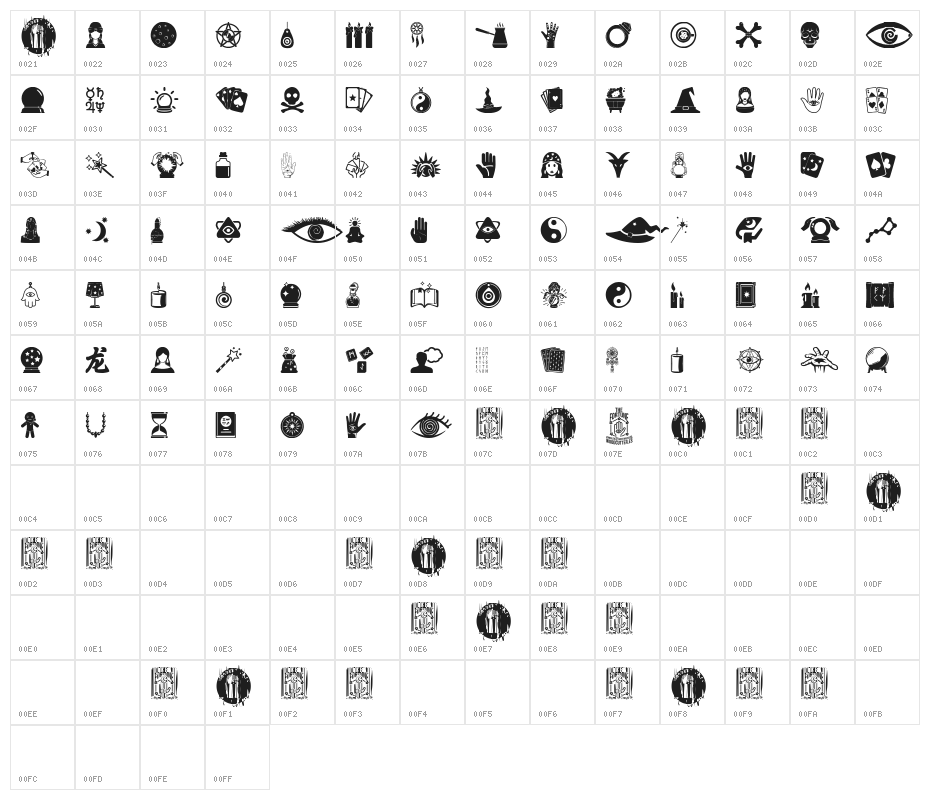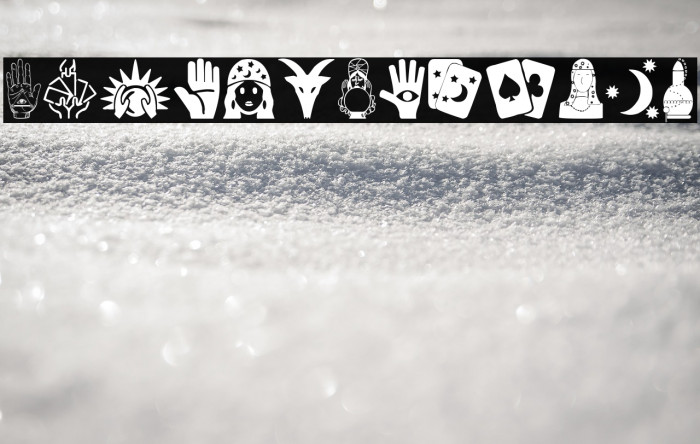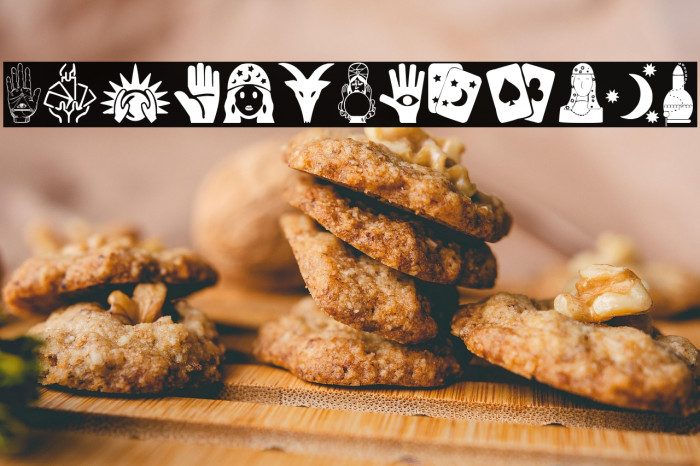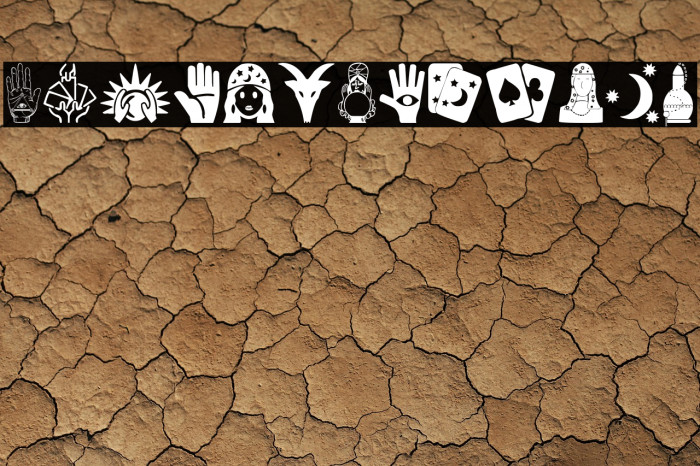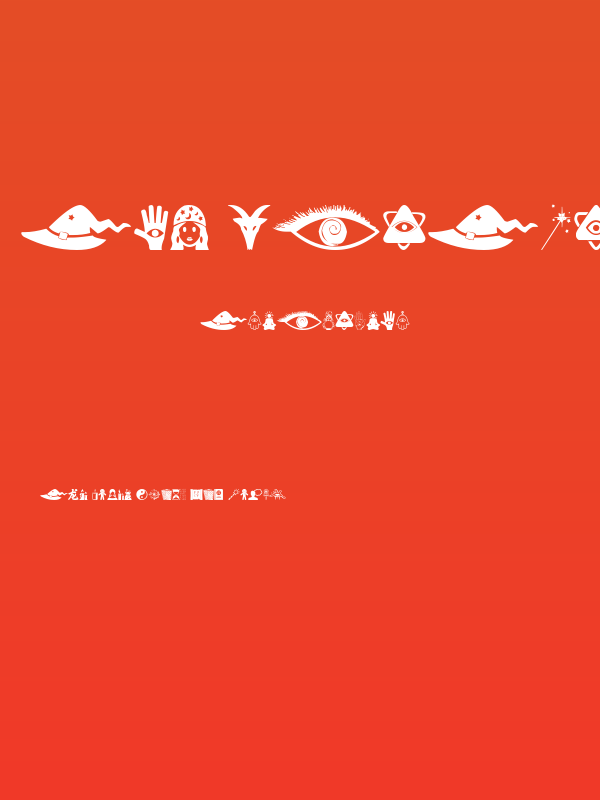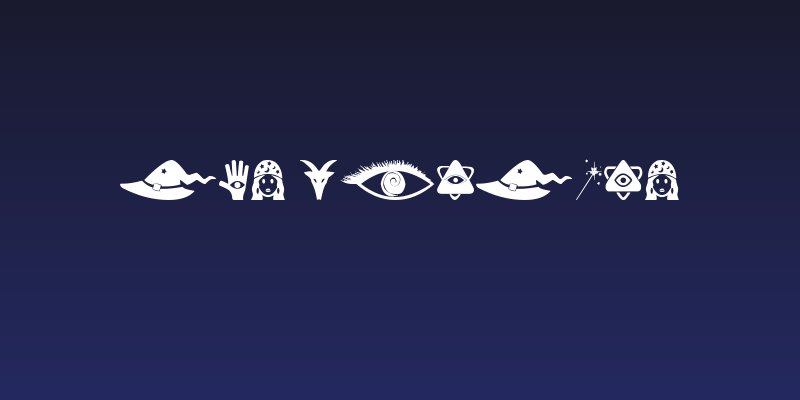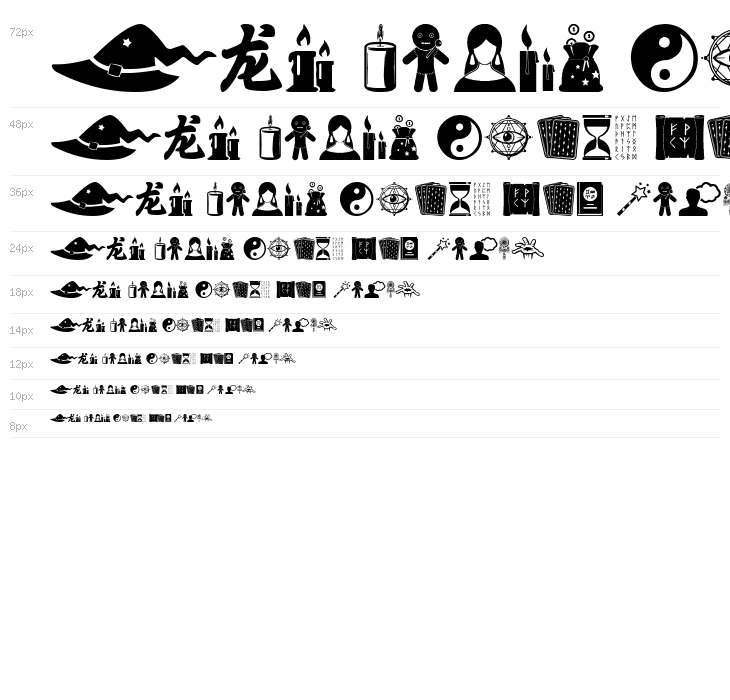
This collection features a diverse array of mystical and fortune-telling themed icons. Each symbol is intricately designed, capturing elements like tarot cards, crystal balls, and astrological signs. The icons are bold and visually striking, making them ideal for projects that require a touch of mystery or magic. The style is consistent throughout, with a focus on clear, recognizable imagery that conveys a sense of the mystical arts. These icons are perfect for adding a unique flair to designs related to divination, astrology, or fantasy themes.
| Use Case | Logos, Illustrations, Themed Decorations |
| Proposed Projects | Ideal for use in fantasy-themed games, mystical event promotions, tarot card designs, or astrology websites. |